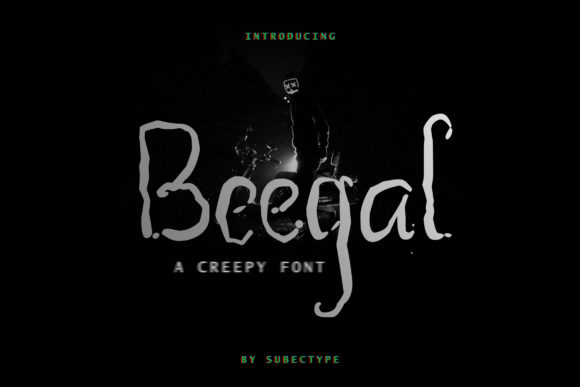
Beegal Font: The Creepy Style for Your Spooky Designs
The Beegal font is a unique and eerie typeface that is perfect for creating creepy themed designs. With its unsettling and mysterious style, this font is sure to add a touch of horror and suspense to any project. In this article, we’ll dive into the world of Beegal font and explore its features, uses, and benefits.
What is Beegal Font?
Beegal font is a decorative typeface that is designed to resemble a creepy, handwritten script. Its irregular shapes and uneven lines give it a sense of eeriness and foreboding, making it perfect for designs that require a spooky or horror theme. The font is available in various formats, including OTF, TTF, and WOFF, making it compatible with most design software.
The Beegal font is a relatively new addition to the world of typography, but it has quickly gained popularity among designers and artists who specialize in creating spooky and horror-themed designs. Its unique style and versatility have made it a go-to font for many creatives.
Features of Beegal Font
The Beegal font has several features that make it stand out from other typefaces. Some of its notable features include:
- Creepy style: The Beegal font has a distinctly creepy style that is perfect for horror and spooky themed designs.
- Handwritten script: The font is designed to resemble a handwritten script, giving it a personal and organic feel.
- Irregular shapes: The font’s irregular shapes and uneven lines add to its eerie and unsettling style.
Uses of Beegal Font
The Beegal font is perfect for a wide range of design projects that require a creepy or horror theme. Some of the most popular uses of this font include:
- Horror movie posters: The Beegal font is perfect for creating eye-catching and terrifying horror movie posters.
- Spooky invitations: The font can be used to create spooky and eerie invitations for Halloween parties or other horror-themed events.
- Creepy logos: The Beegal font can be used to create creepy and memorable logos for businesses that specialize in horror-themed products or services.
- Dark art projects: The font is perfect for dark art projects that require a creepy and unsettling style.
Benefits of Using Beegal Font
There are several benefits to using the Beegal font in your design projects. Some of the most notable benefits include:
- Unique style: The Beegal font has a unique and distinctive style that sets it apart from other typefaces.
- Eerie atmosphere: The font’s creepy style creates an eerie and unsettling atmosphere that is perfect for horror and spooky themed designs.
- Versatility: The Beegal font is versatile and can be used in a wide range of design projects, from horror movie posters to dark art projects.
The Beegal font is a unique and creepy typeface that is perfect for horror and spooky themed designs. Its irregular shapes and uneven lines give it a sense of eeriness and foreboding, making it a go-to font for many designers and artists. With its versatility, ease of use, and distinctive style, the Beegal font is sure to add a touch of horror and suspense to any design project.
- What is the Beegal font?: The Beegal font is a decorative typeface that is designed to resemble a creepy, handwritten script.